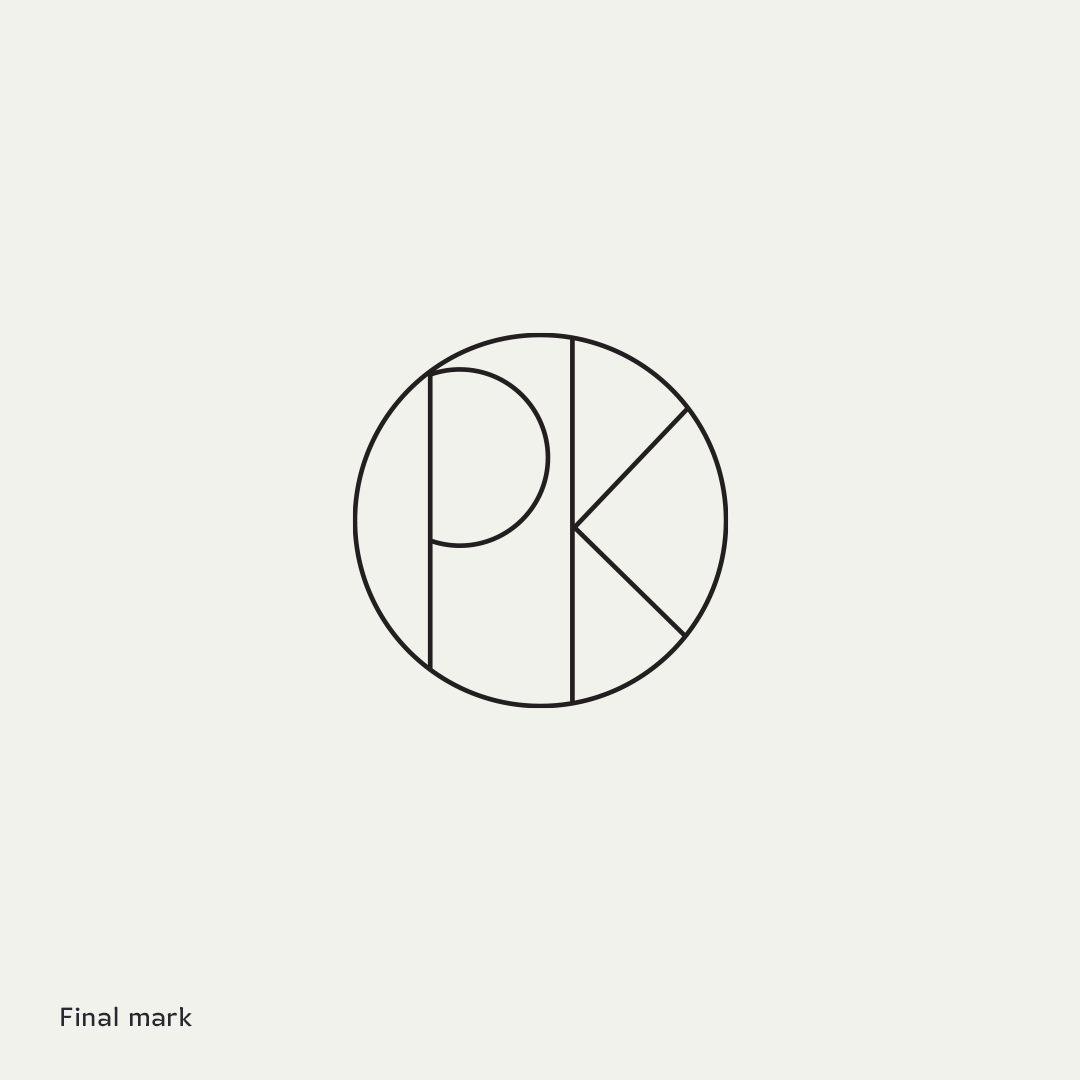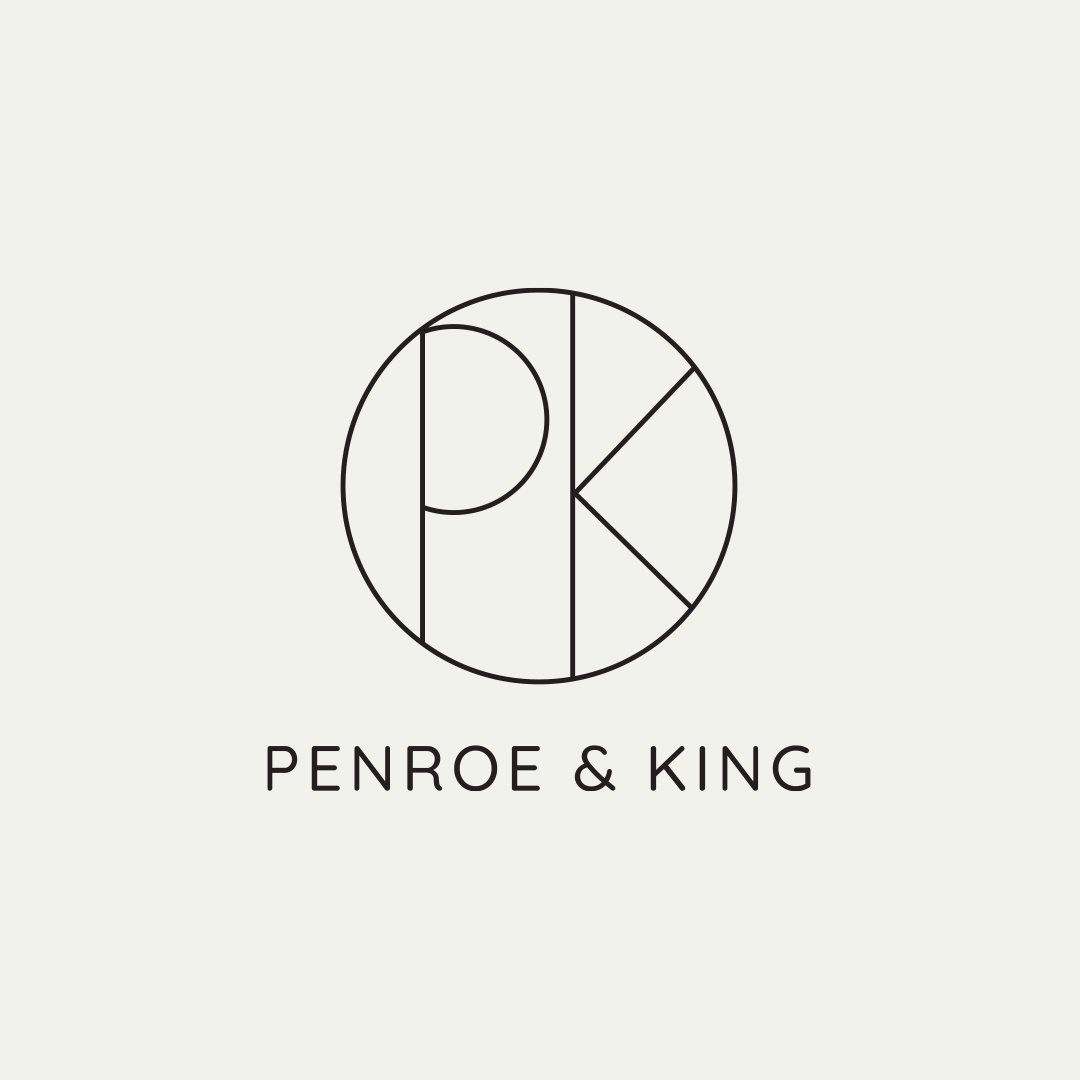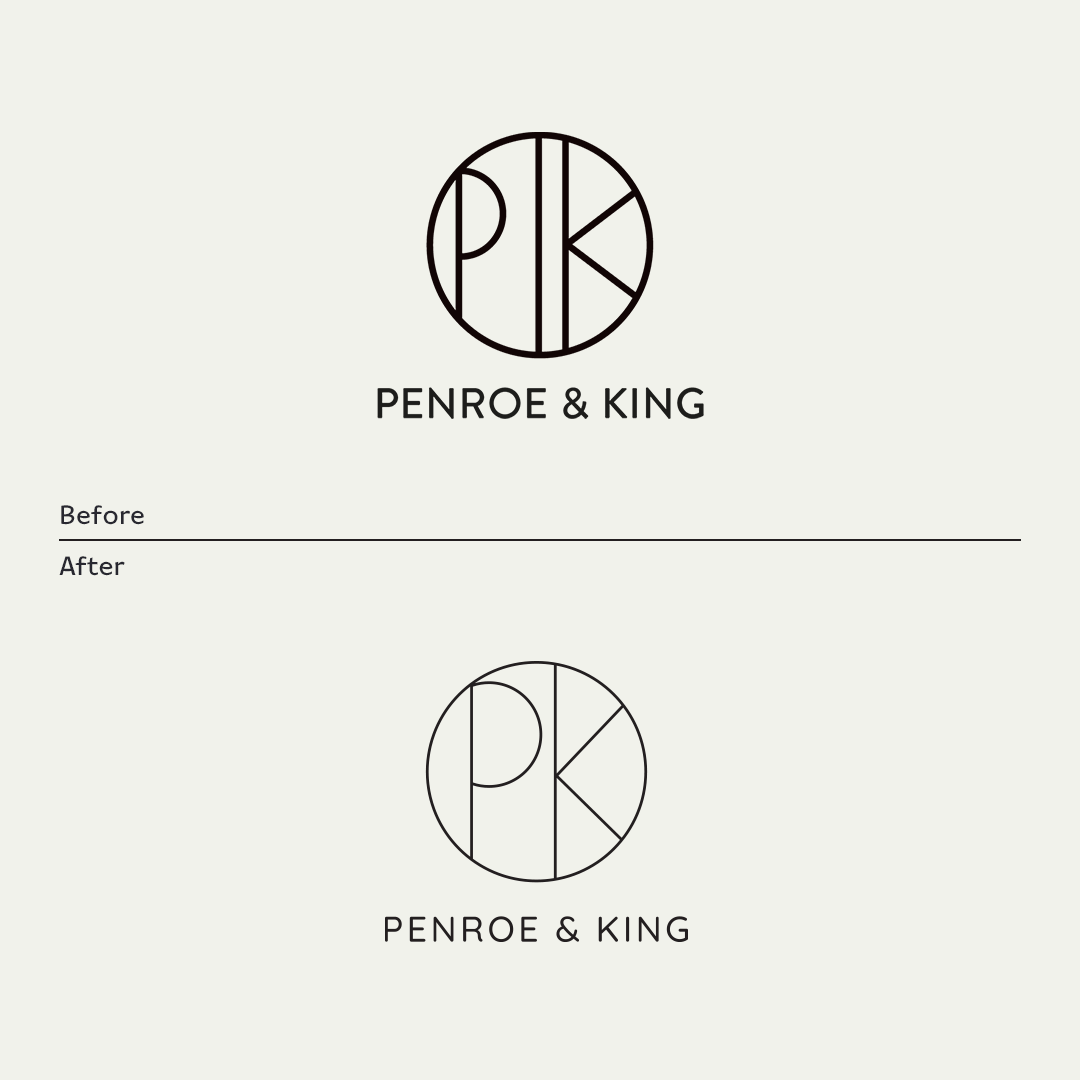
Brand refresh for Penroe and King – expressively designed and customisable kitchens and furniture, made to the highest standard. I’d perved over their kitchens long before I got to do a refresh on their branding so was really happy to be asked.
I did rounds of initial sketches and then we explored a full rebrand just in case we were missing an opportunity.
In the end we refreshed their logo and paired it with Quicksand - a font they could easily use across web and print.
I redrew the letters and balanced out the composition. They wanted the mark to be elegant and refined but still have a minimal, premium, stripped-back feel - much like their work.
I did rounds of initial sketches and then we explored a full rebrand just in case we were missing an opportunity.
In the end we refreshed their logo and paired it with Quicksand - a font they could easily use across web and print.
I redrew the letters and balanced out the composition. They wanted the mark to be elegant and refined but still have a minimal, premium, stripped-back feel - much like their work.